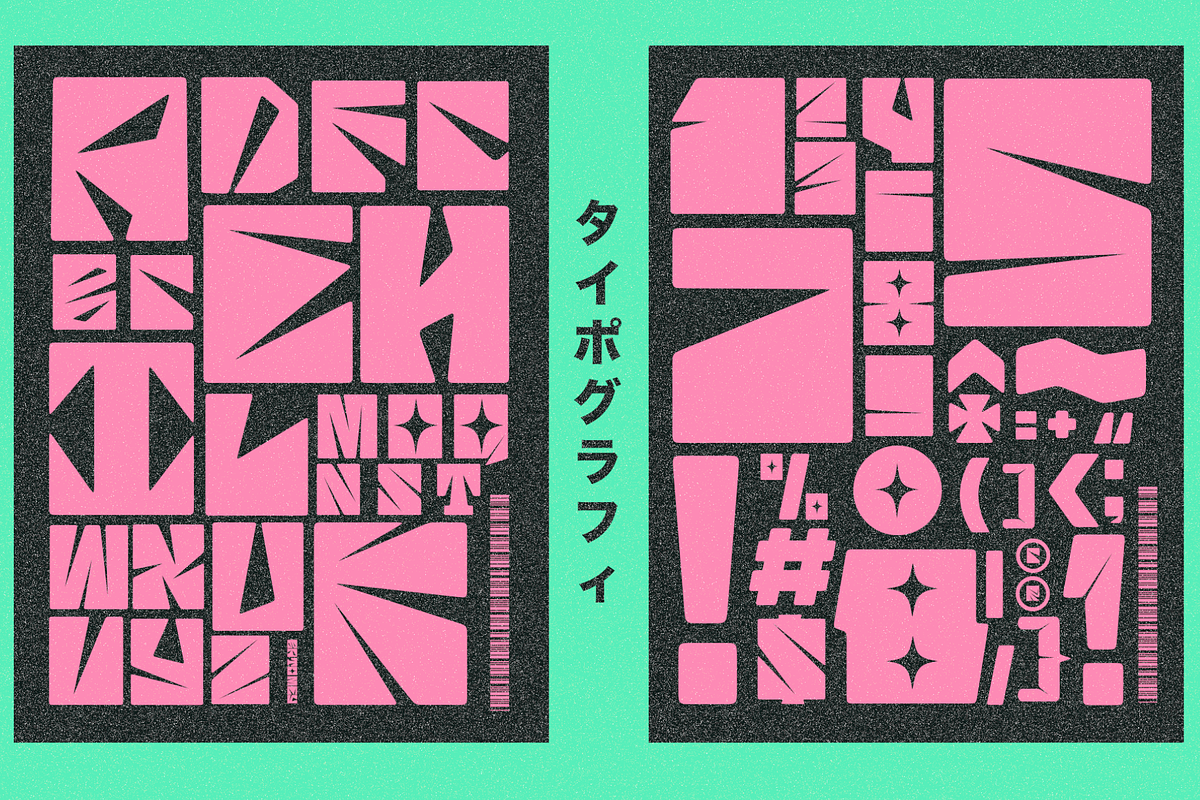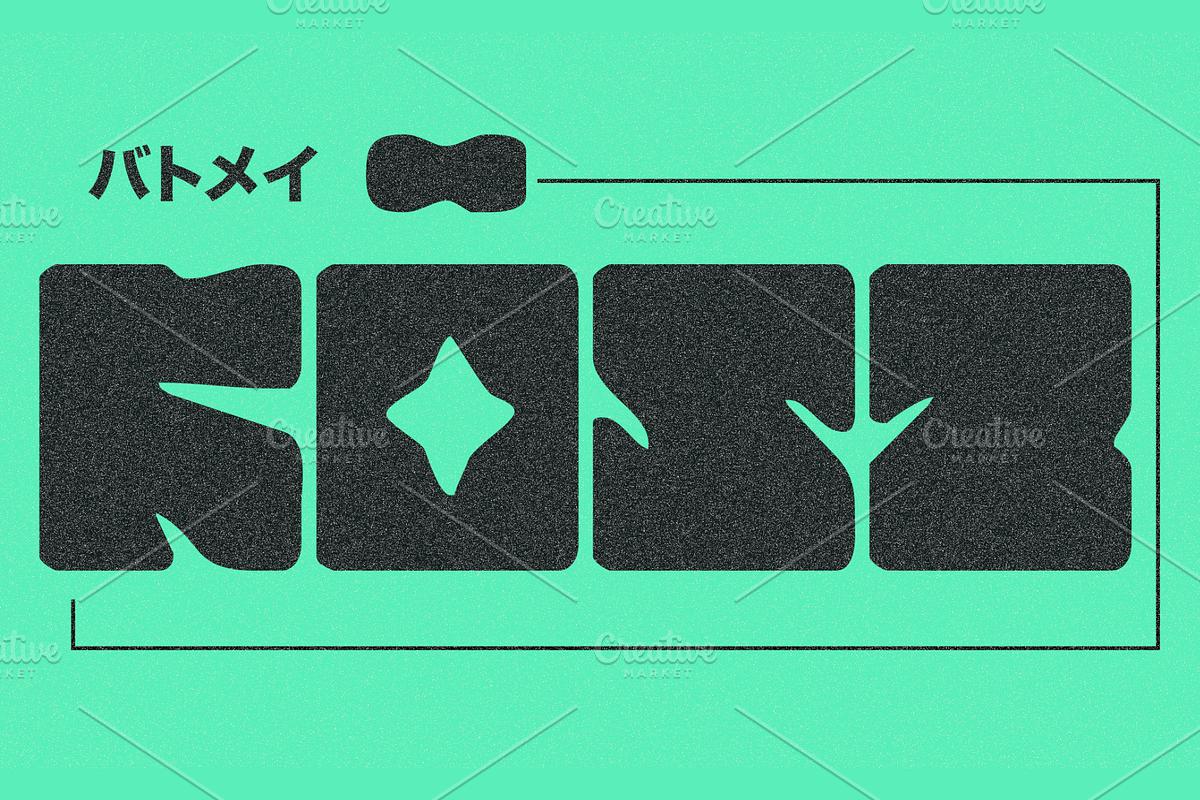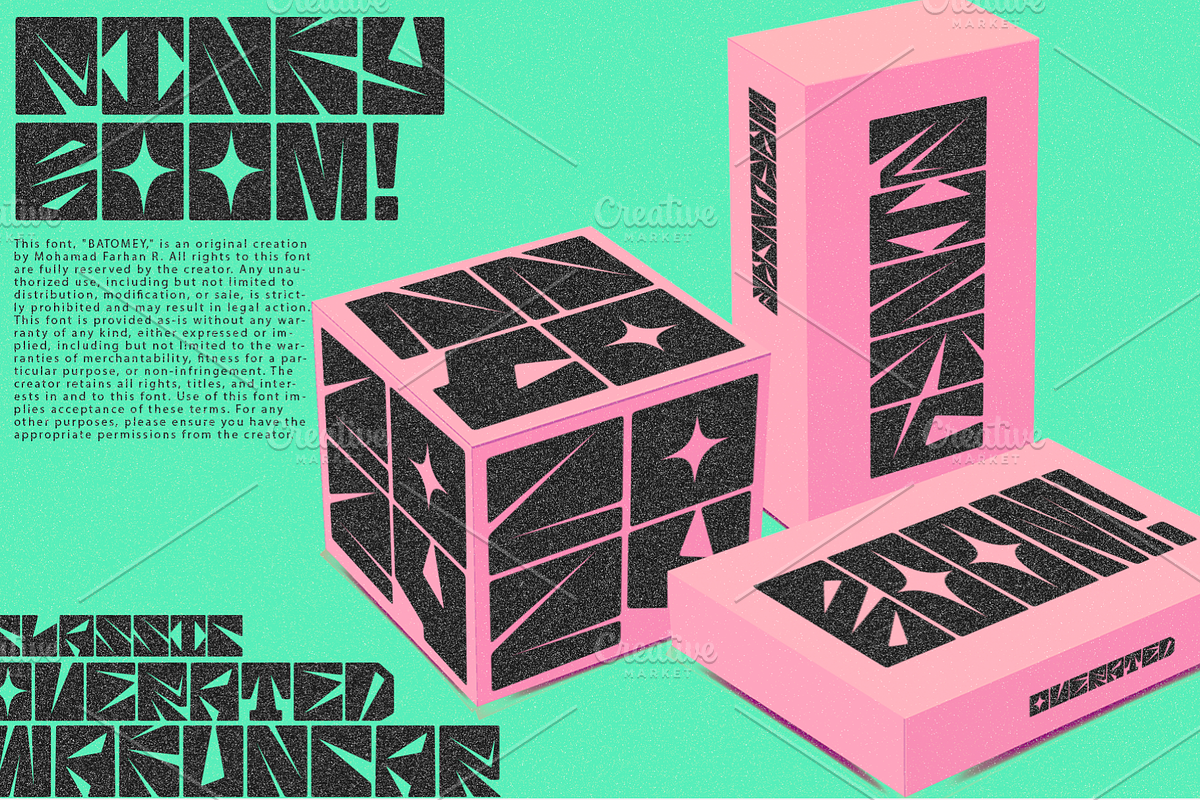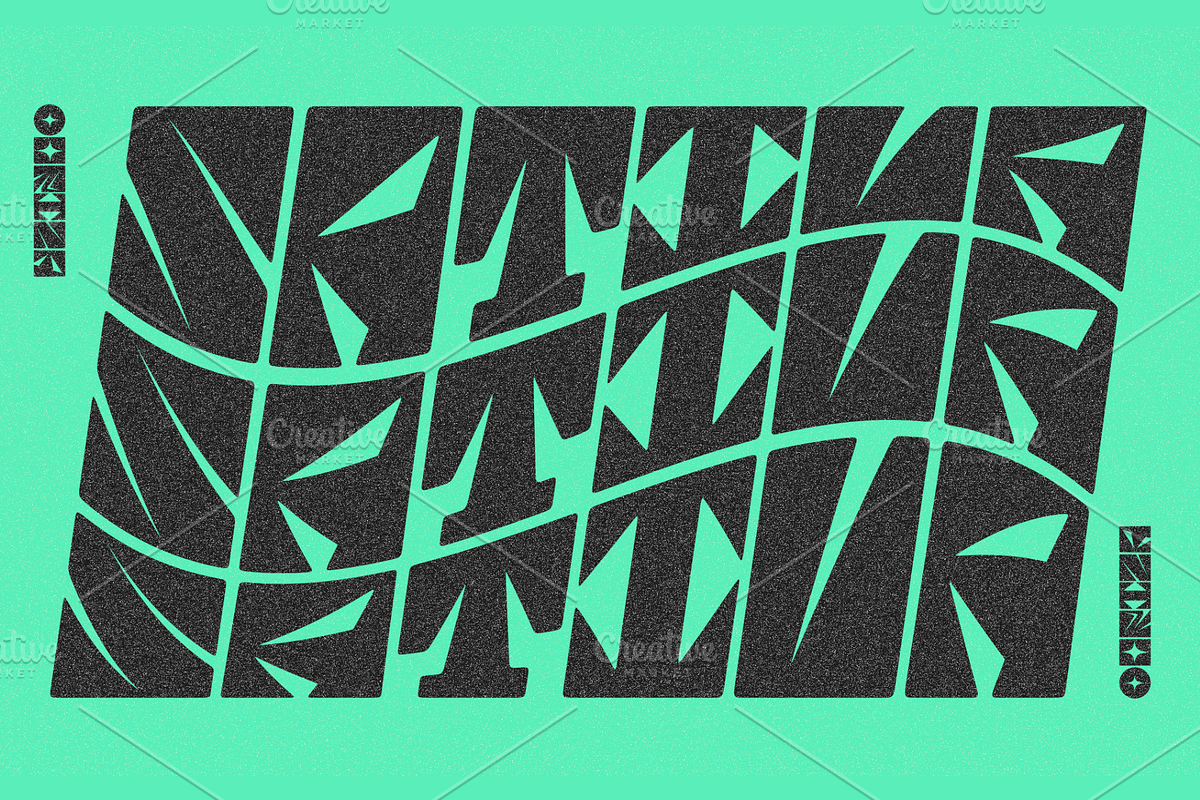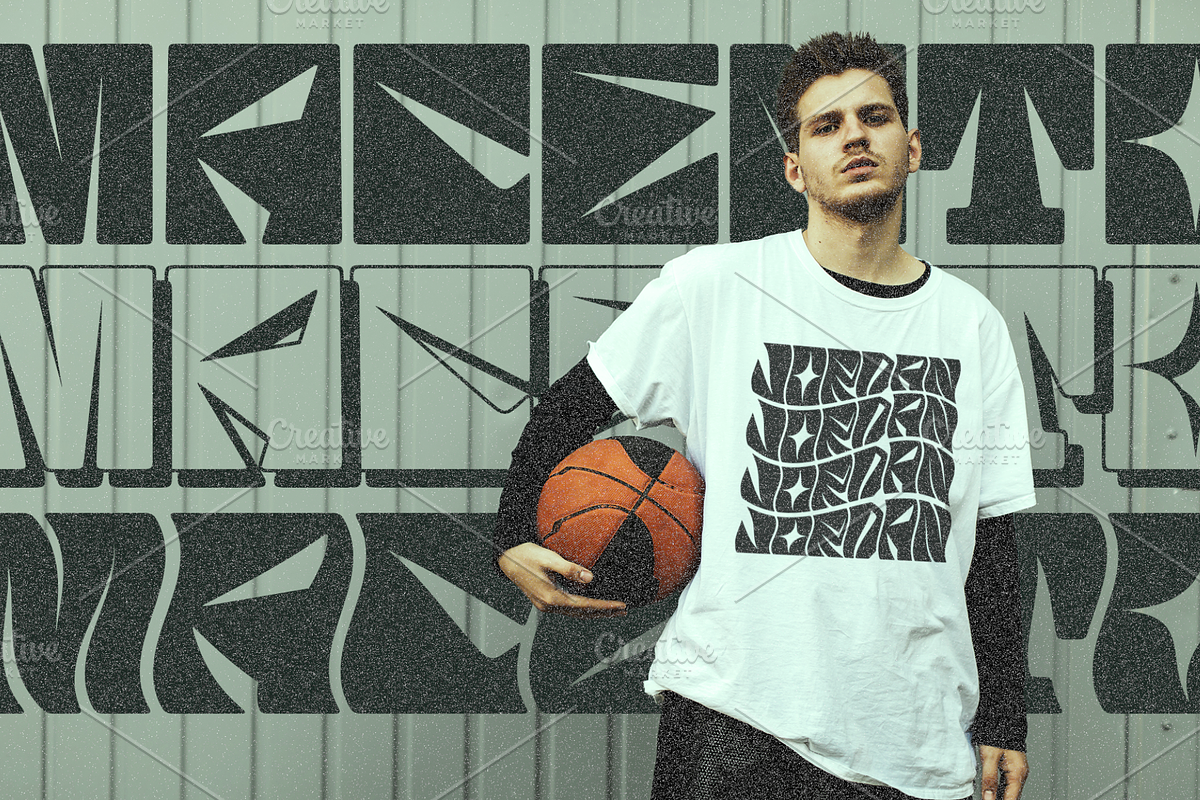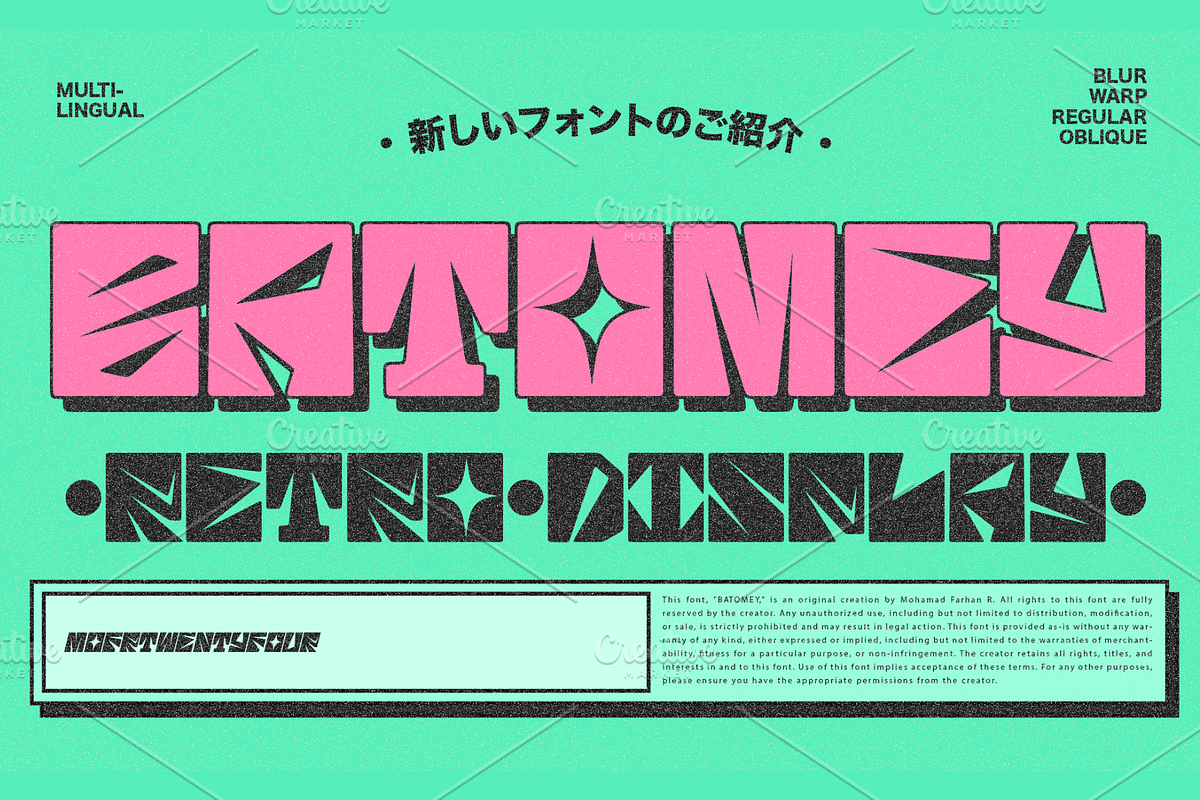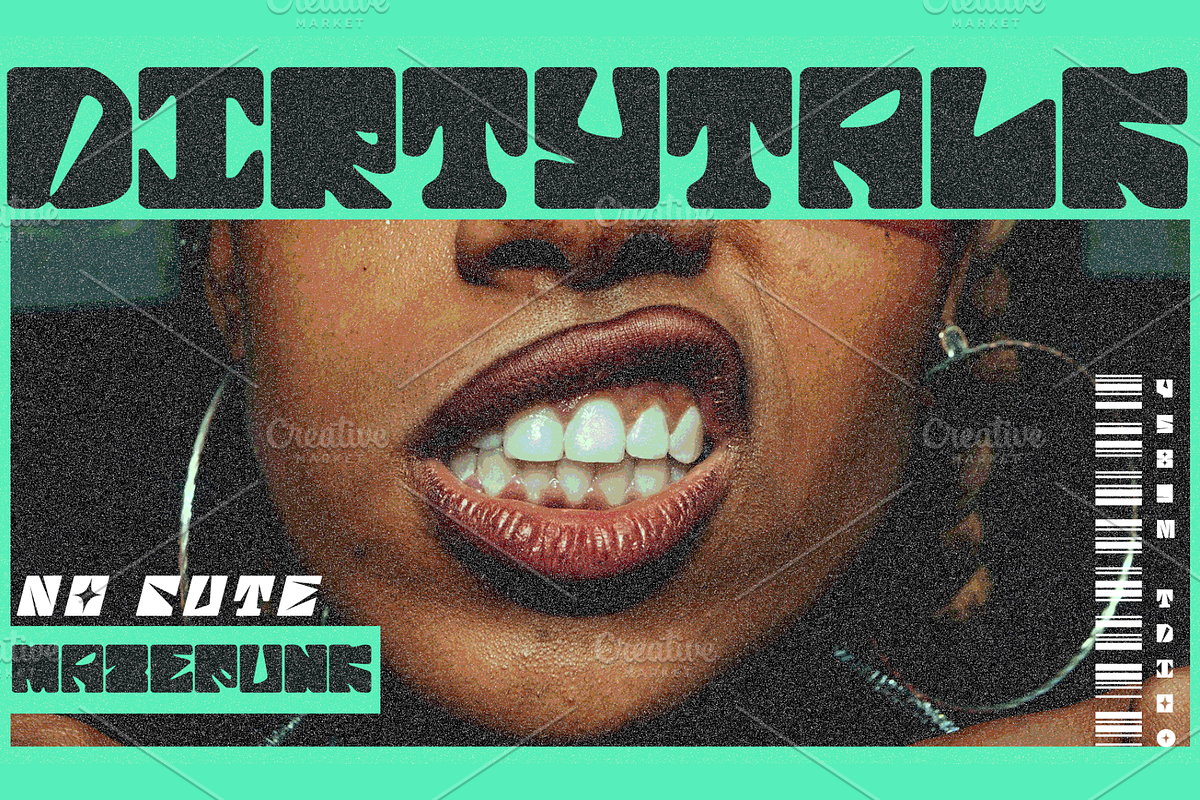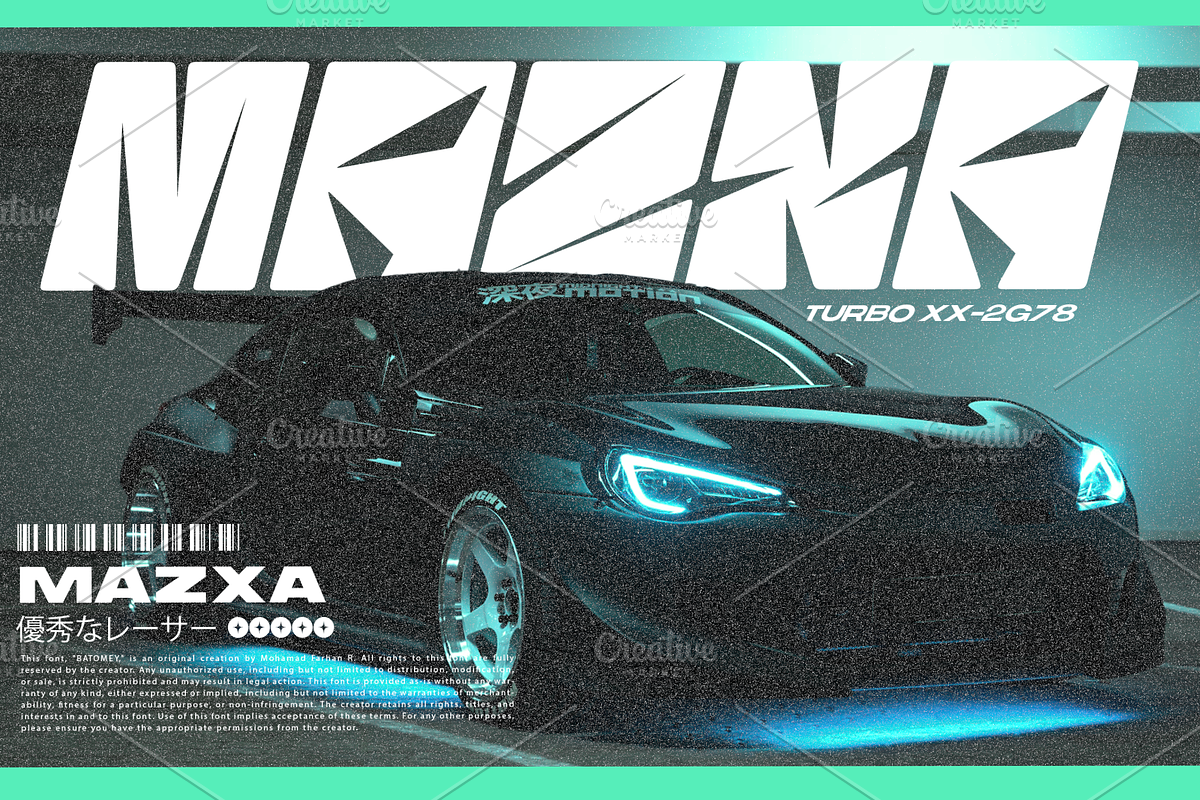
Batomey - Retro Display
IImmerse yourself in the nostalgic vibes of Batomey, a strikingly distinctive retro display font. Boasting more than 300 artistic glyphs, Batomey proves its potential in the realm of multilingual communication, fortified by modish shadow, wrap, and regular variants. With versatility at its core, Batomey shines when incorporated in branding, magazine layouts, typographical pieces, poster design, eye-catching thumbnails, and streetwear art. Bask in the charm of this font, a must-have asset for any endeavor seeking to showcase creativity and style.